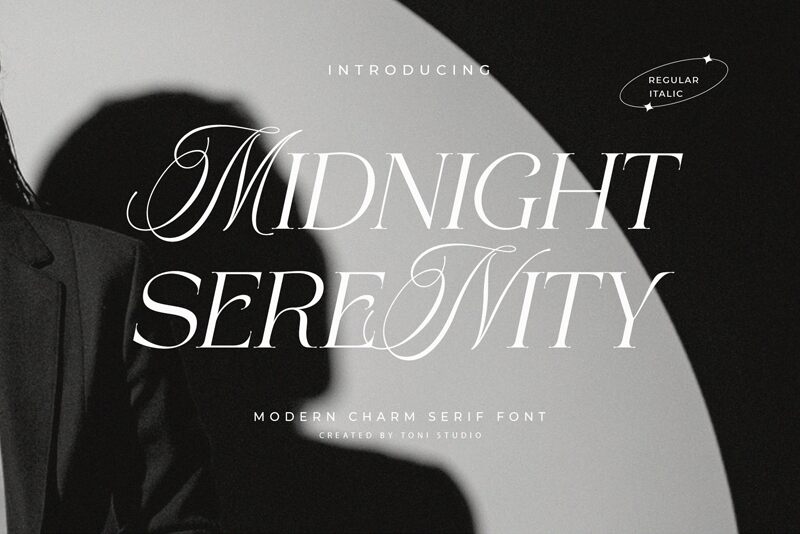
MIDNIGHT SERENITY Italic
Midnight Serenity Italic, a serene and stylized addition to the Midnight Serenity font family, exudes a graceful elegance that can only be attributed to the meticulous craftsmanship of ToniStudio. With its semi-light weight and refined serif style, this font highlights an understated sophistication that is versatile yet distinctive. The flowing italics suggest a softness and fluidity reminiscent of a tranquil evening whisper.
This typeface's aesthetic charm lies in its ability to marry classic serifs with contemporary finesse, making it an excellent choice for various creative endeavors. Whether it's for editorial design, sophisticated branding projects, or elegant invitations, Midnight Serenity Italic captivates with its subtle allure and impeccable design detail. Its potential applications are as vast as the night sky for which it is named—perfect for those seeking a touch of midnight magic in their typographic compositions.